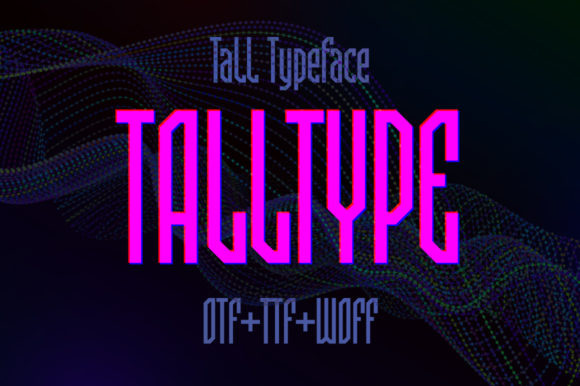
Enter the realm of digital grandeur with Talltype Font, a typographic masterpiece crafted to redefine the boundaries of contemporary design. This display font, a creation of the visionary yuryfrom, oozes boldness and futurism, embodying the essence of modern aesthetics.
Talltype Font isn't just a font; it's a gateway to a world of limitless creative possibilities. Its robust, robotic structure exudes an air of authority and innovation that will elevate your designs to new heights. Whether you're a seasoned designer or a creative enthusiast, Talltype Font is your golden ticket to crafting masterpieces that resonate with the modern world.
Picture this: You're designing a website for a cutting-edge tech startup. You want a font that reflects the company's forward-thinking ethos. Talltype Font steps into the spotlight, its sharp angles and geometric precision evoking a sense of dynamism and progress. Your website becomes a visual symphony, captivating visitors from the moment they land on it.
Now, envision creating business cards for a creative agency known for its innovative approach. Talltype Font takes center stage, its bold strokes and unconventional letterforms demanding attention. Your business cards become more than just contact information; they transform into miniature works of art, leaving a lasting impression on potential clients.
The versatility of Talltype Font is a designer's dream. Its unique style effortlessly complements a diverse range of design projects, from sleek logos to eye-catching posters. Unleash your imagination and explore the endless possibilities that Talltype Font presents.
But Talltype Font isn't merely a collection of letters; it's an expression of your individuality. It's a tool that empowers you to make a statement, to leave your mark on the digital landscape. Embrace the boldness of Talltype Font and let your creativity soar.